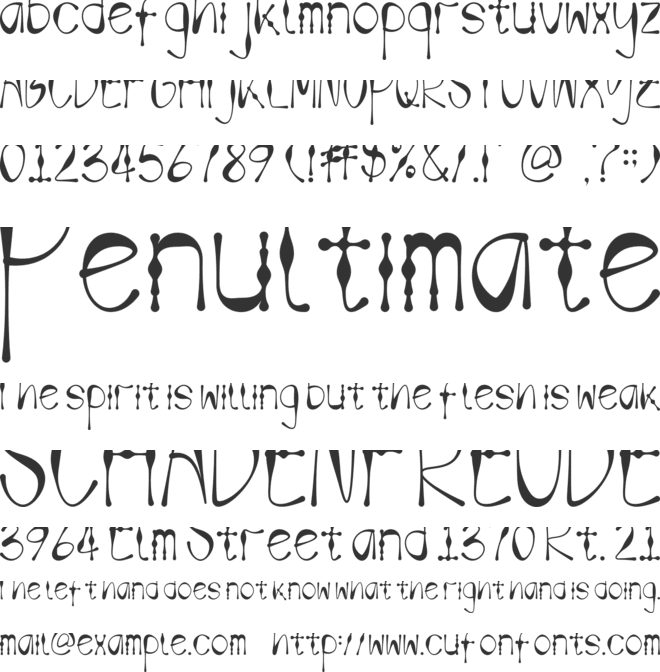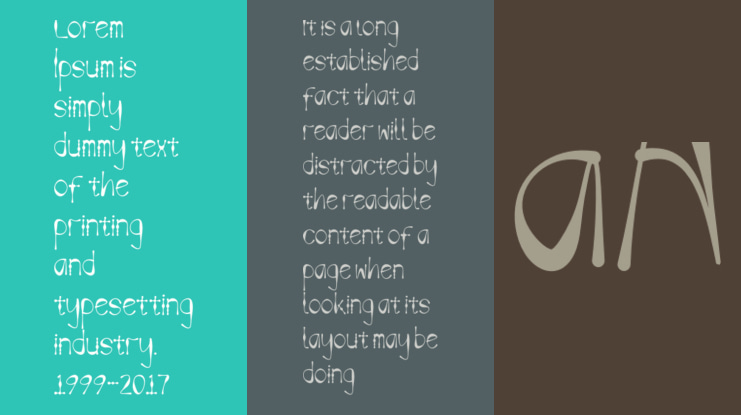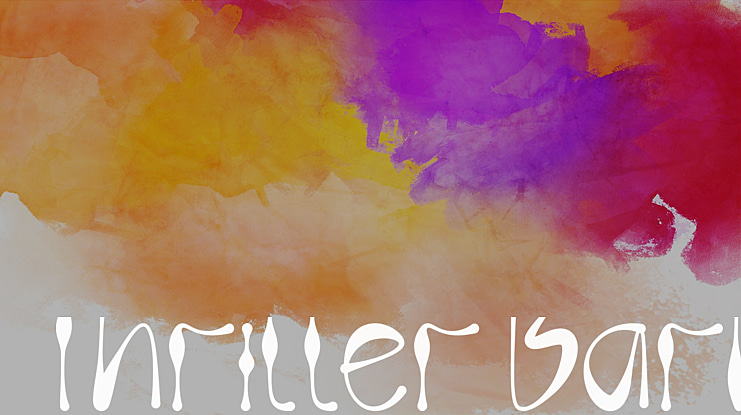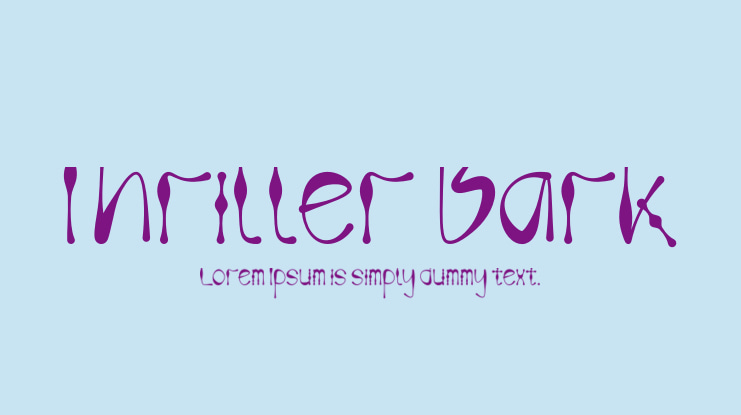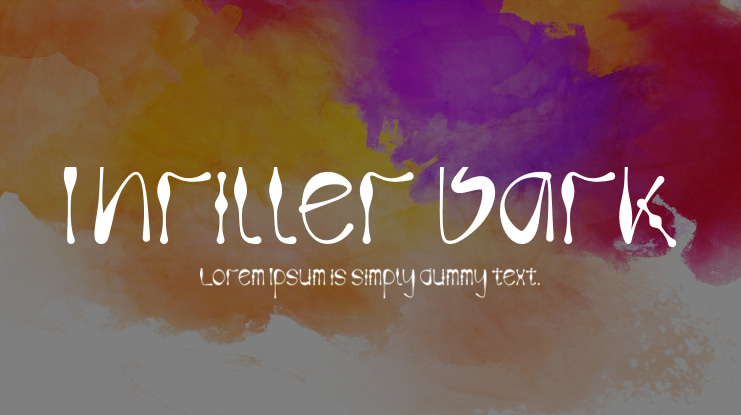
Thriller Bark Font
Thriller Bark is a cool and neat looking display font. No matter the topic, this font will be an incredibly asset to your fonts’ library, as it has the potential to elevate any creation.